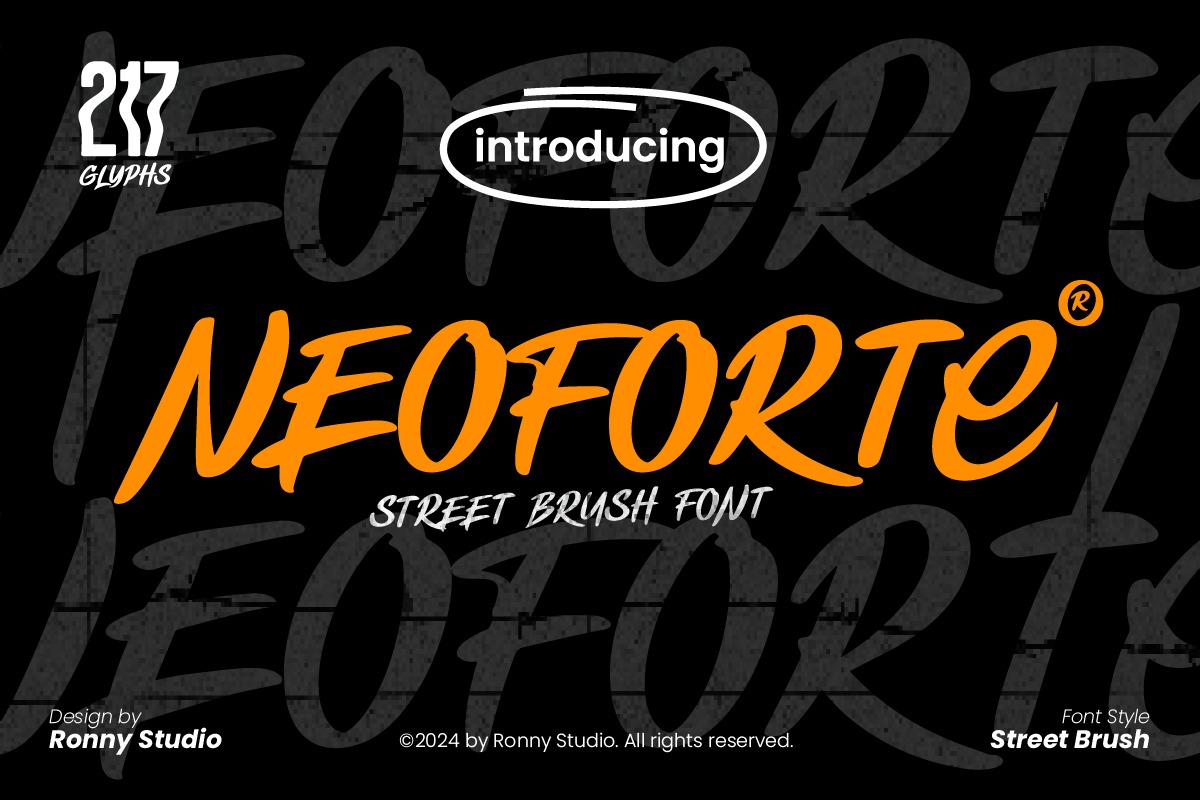
Neoforte Dynamic Street Brush Font
Neoforte – A Bold & Expressive Street Brush Font for Modern Creators 🎨✍️
Neoforte is a handcrafted street brush font with bold strokes and natural flow, making it perfect for designs that need a touch of urban energy and creative flair. Whether you’re working on logos, apparel, branding, packaging, or social media graphics, Neoforte delivers a modern yet artistic handwritten feel that stands out effortlessly.
🖌 Key Features:
✅ Authentic Brush Style – Crafted with dynamic strokes for a natural and energetic look.
✅ Versatile Applications – Ideal for branding, streetwear, posters, signatures, and product packaging.
✅ Multilingual Support – Includes a full set of uppercase, lowercase, punctuation, numbers, and stylistic alternates.